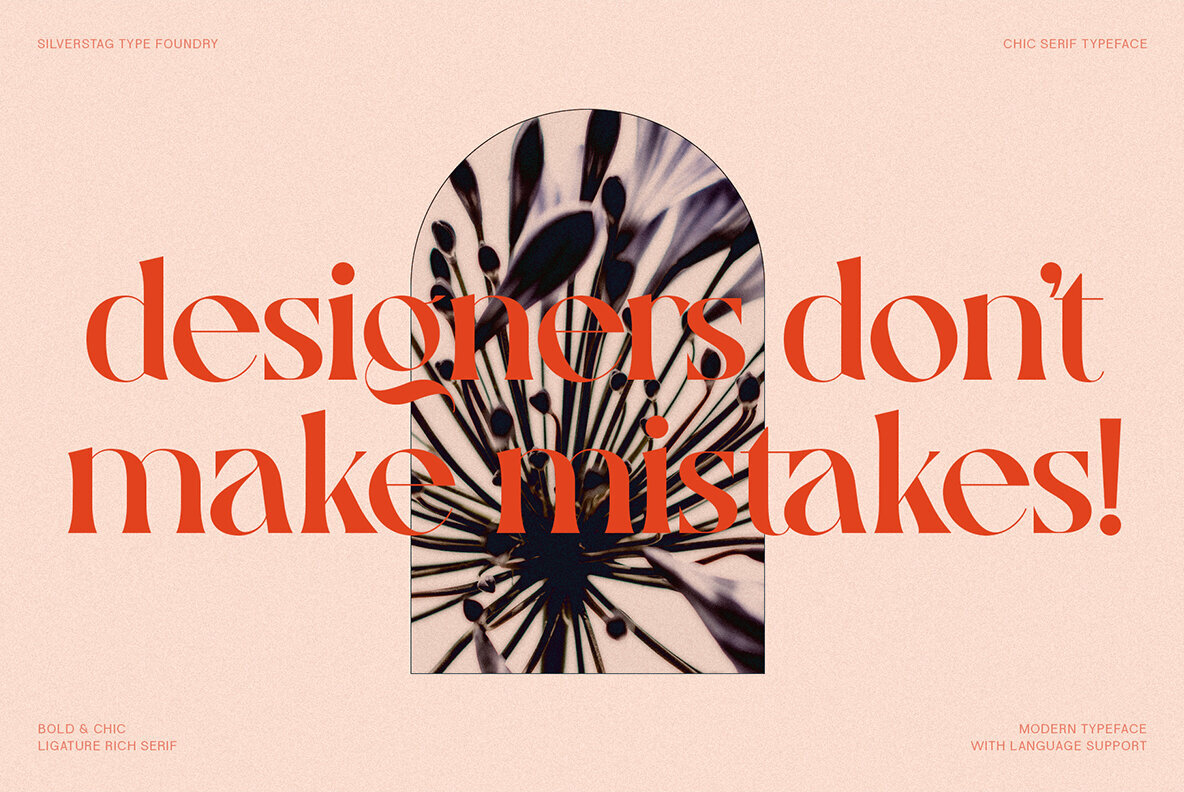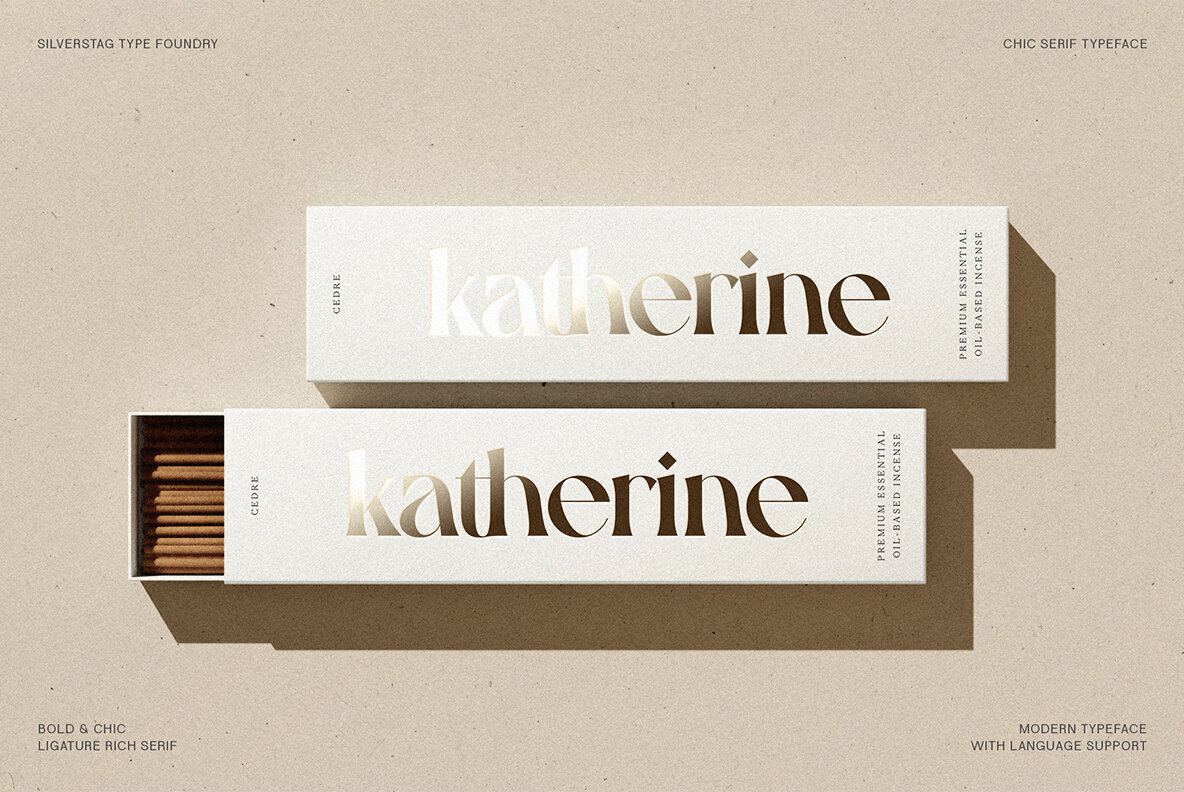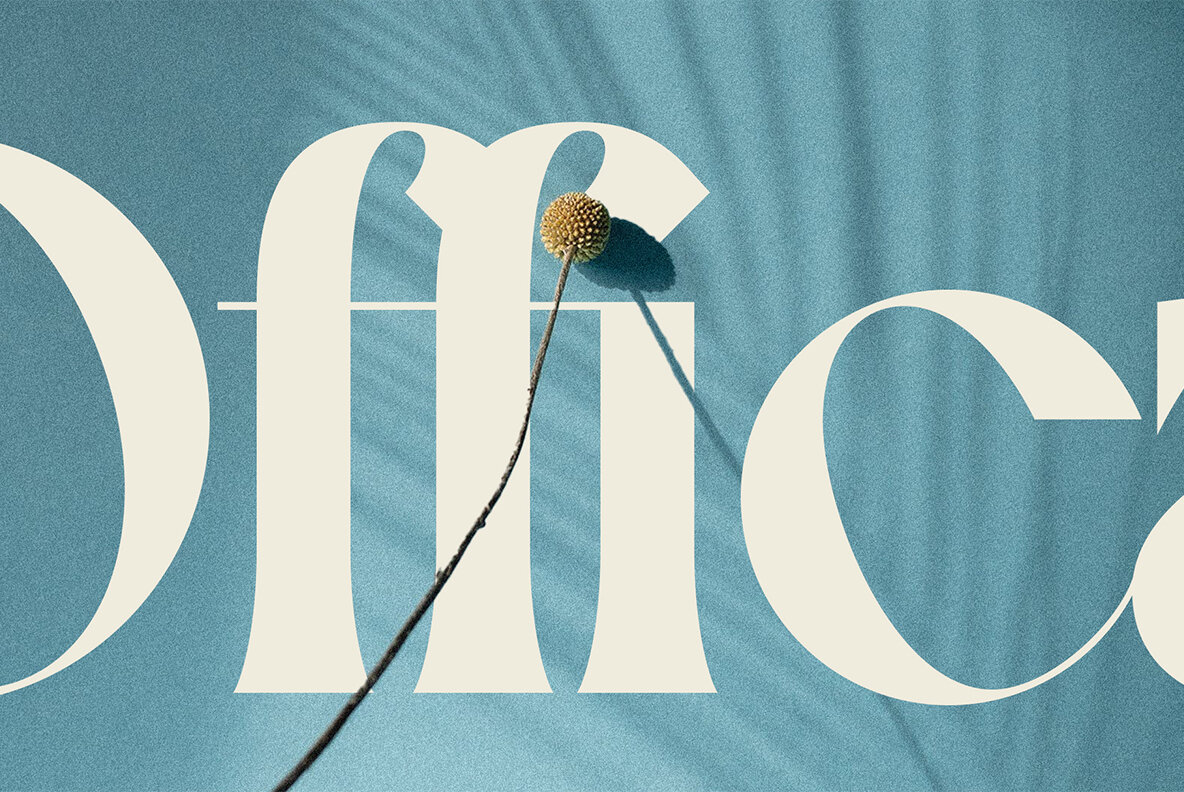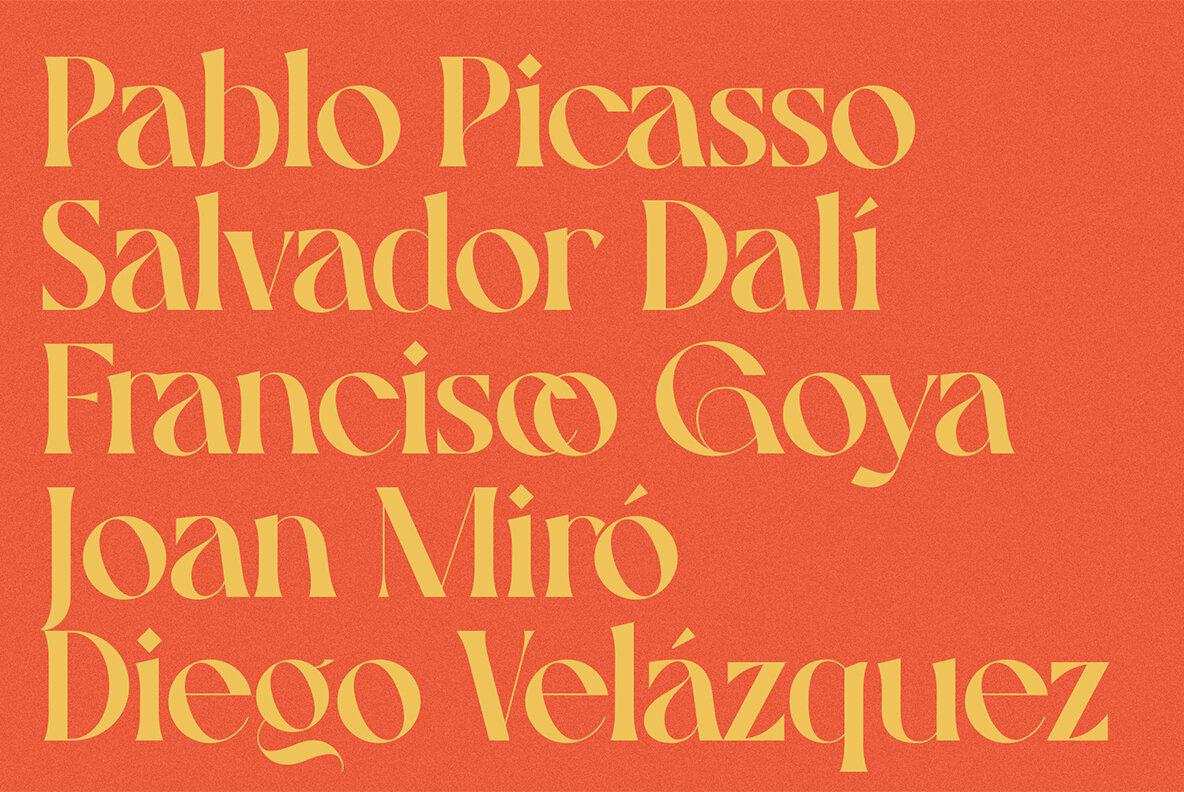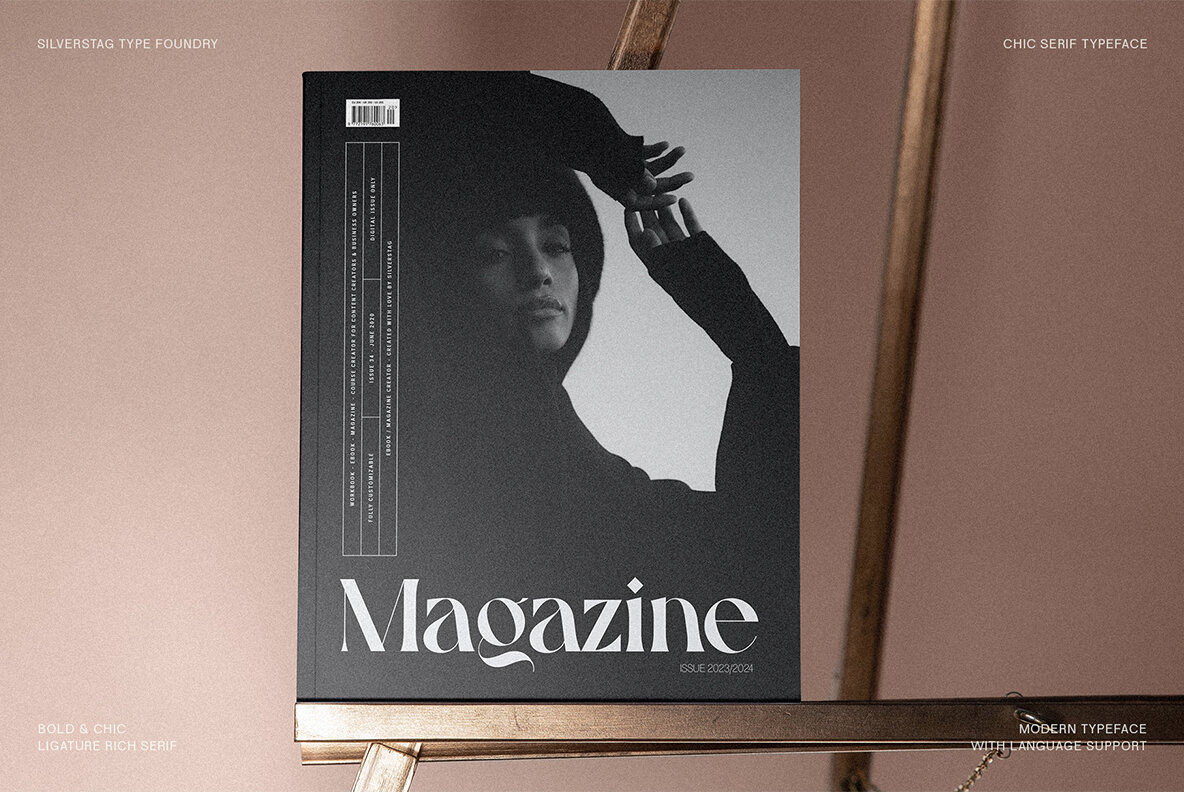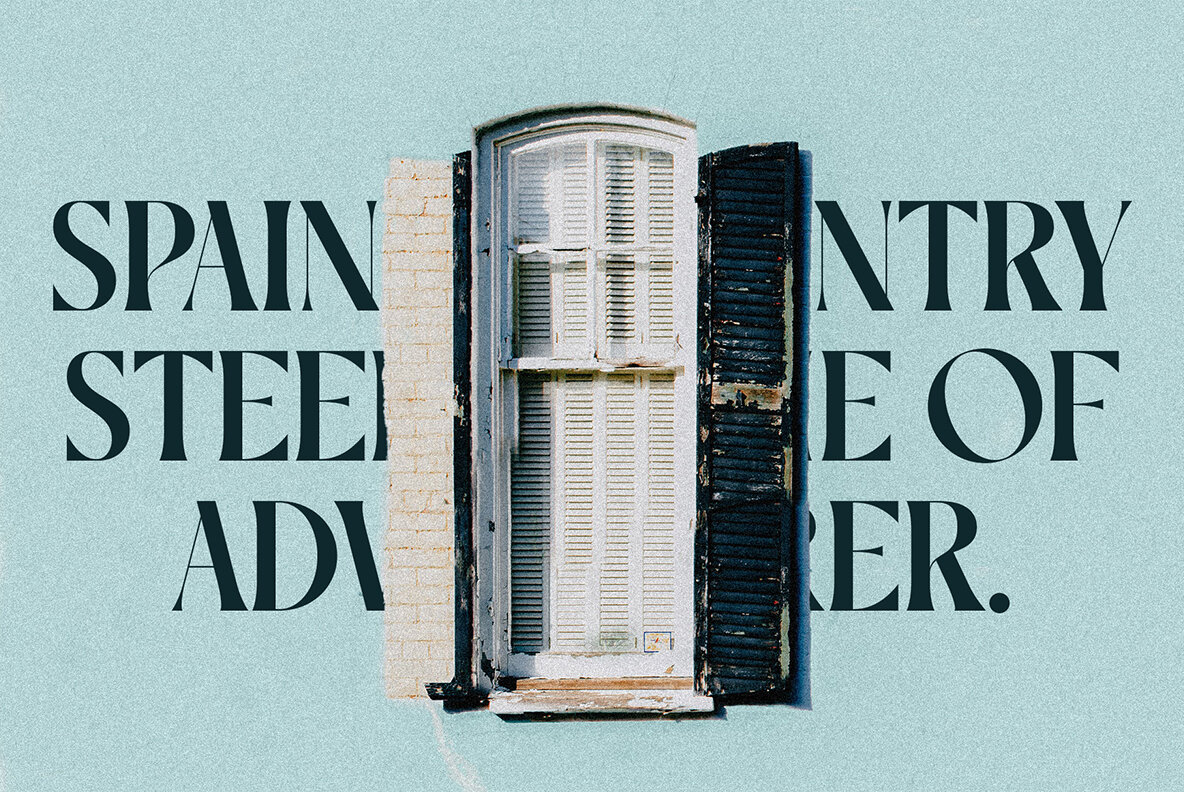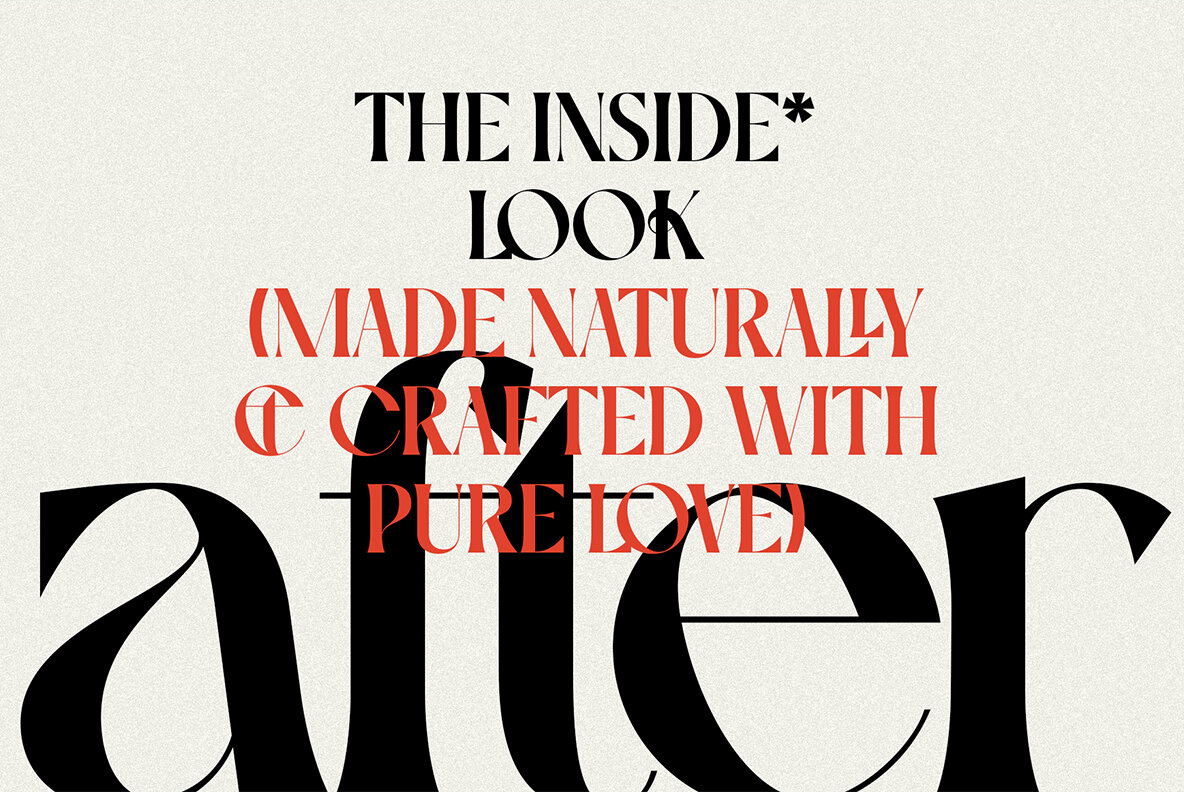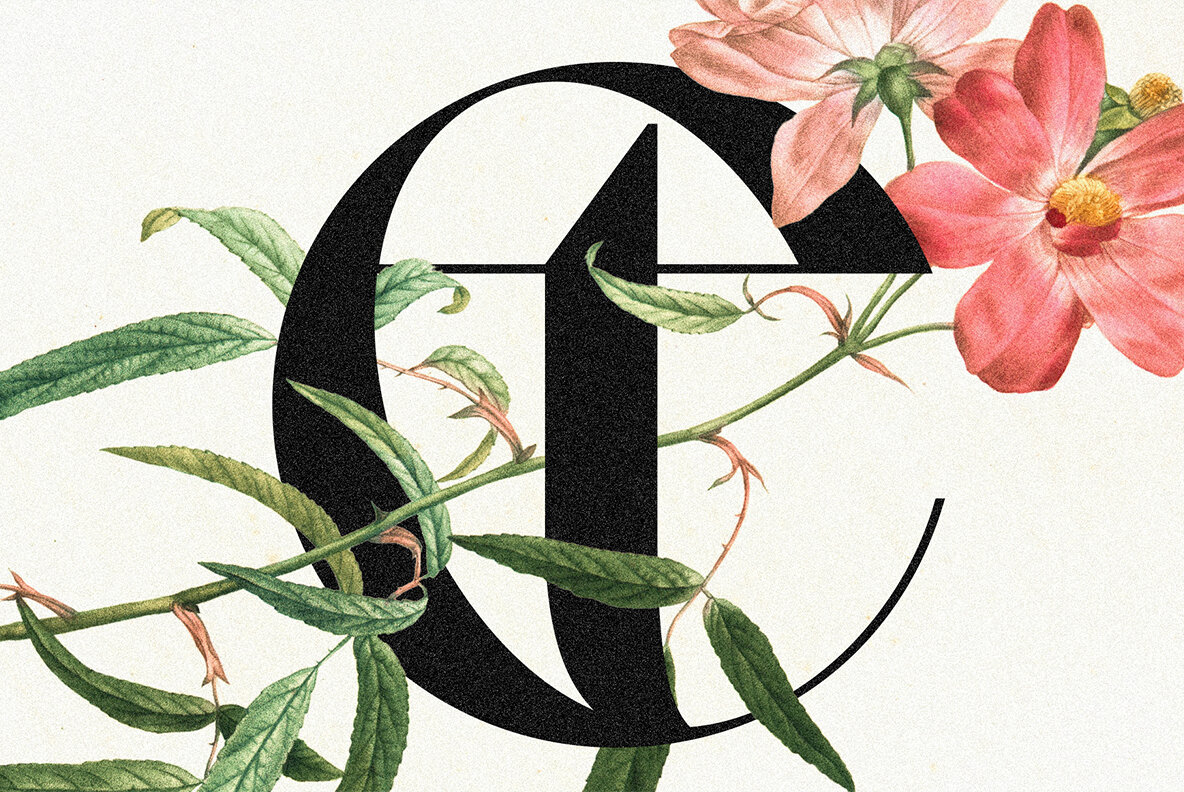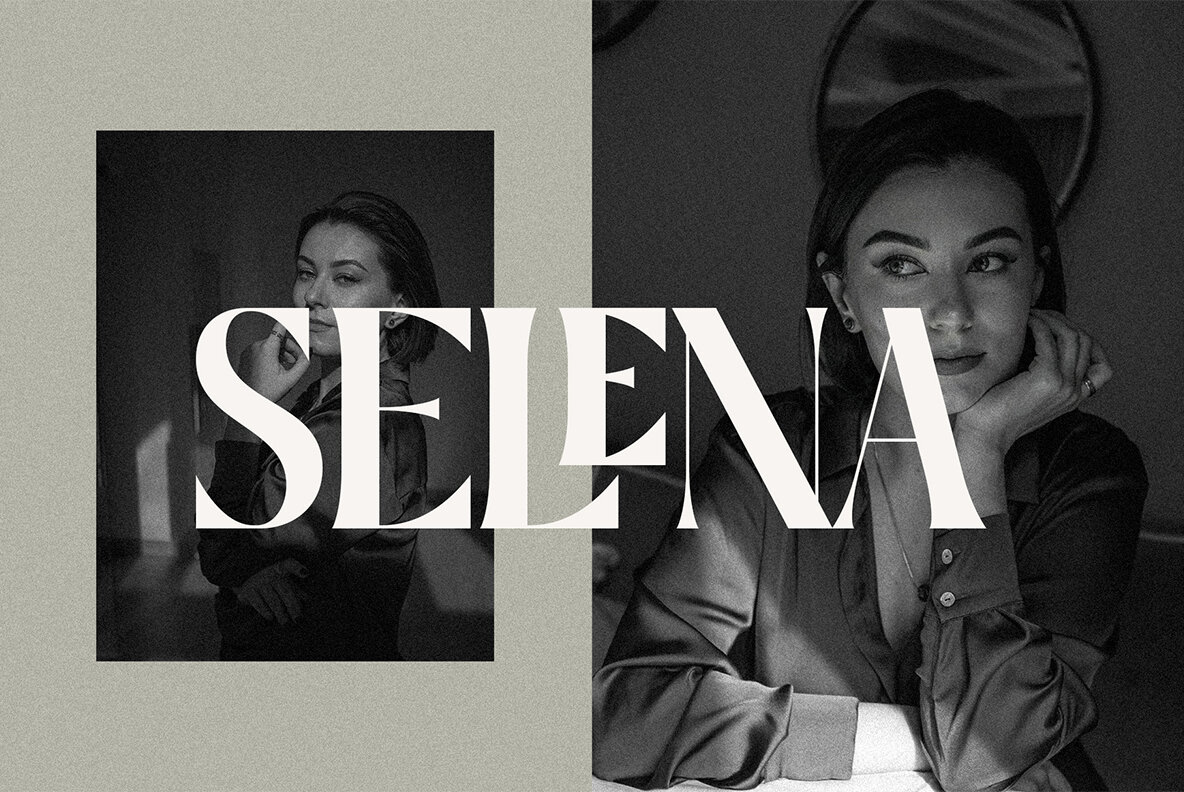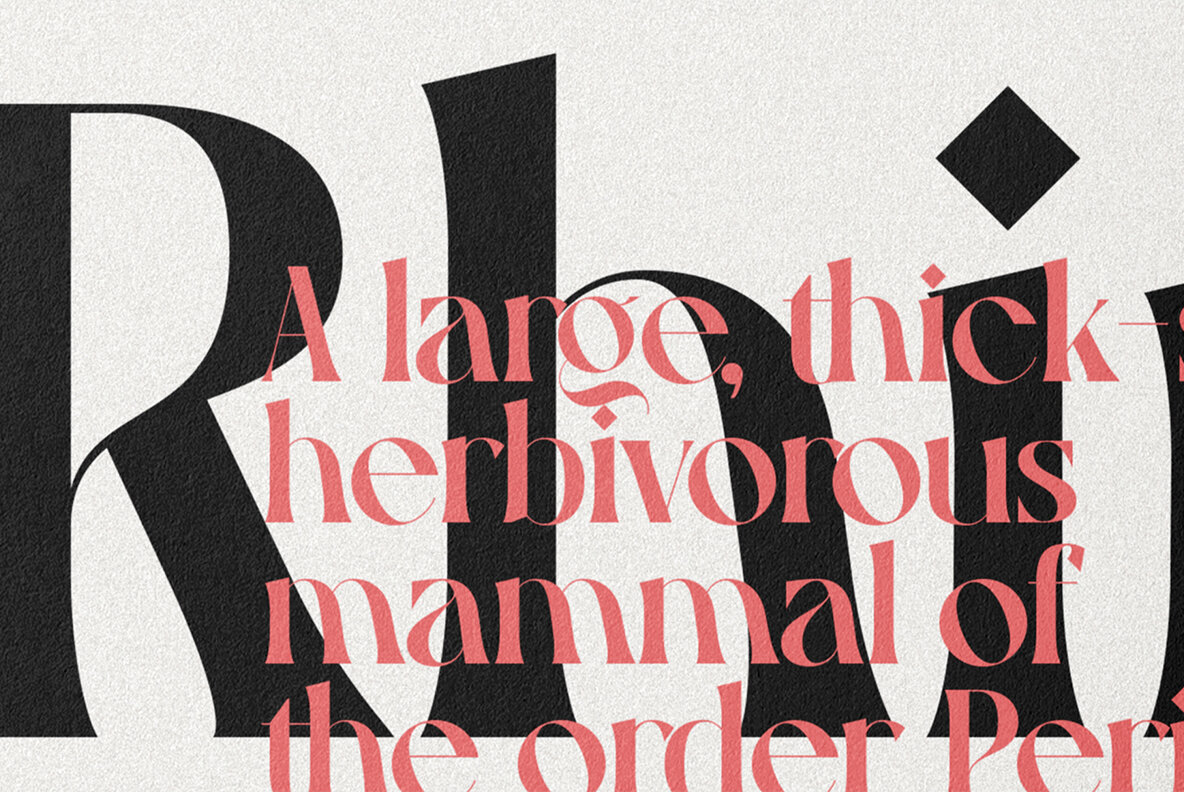
Gallica Font
Gallica Regular
Introducing Gallica, a serif font that shatters expectations with its audacious strokes and unyielding grace. More than just another typeface, Gallica is a design force, meticulously crafted to empower your vision and captivate your audience. Imagine the possibilities: Gallica transcends the ordinary. Its modern curves and distinctive character shapes set it apart, making it ideal for: Not just a font, Gallica is a statement. It's a declaration of your commitment to boldness, beauty, and boundless creativity. Embrace the power of Gallica. Download it today and unleash your design potential.